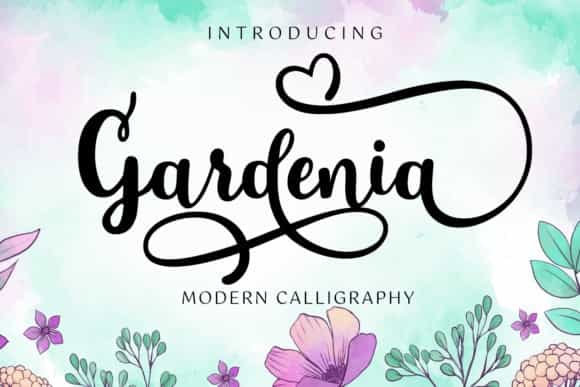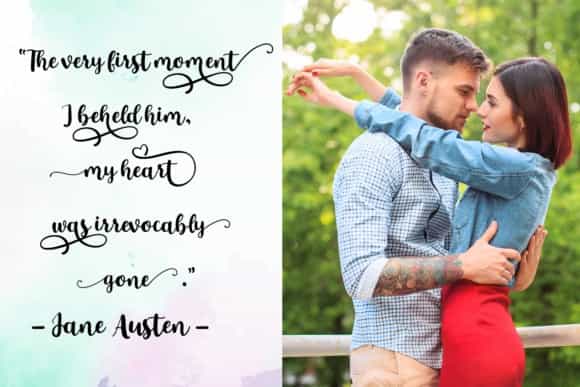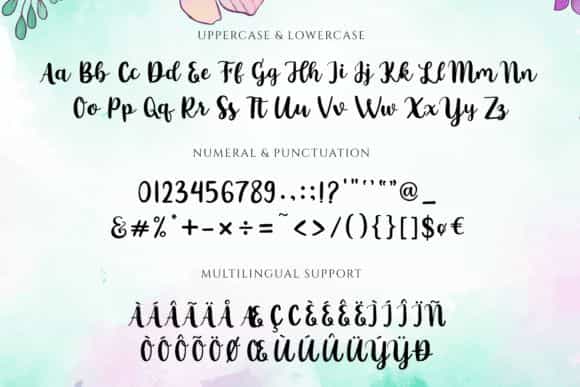
Gardenia is a calligraphy script font designed with natural hand writing for that feminine touch you’ve been searching for. The irregular spacing adds an unique feel perfect, for signatures wedding invitations fashion projects headlines quotes or anything requiring that touch.